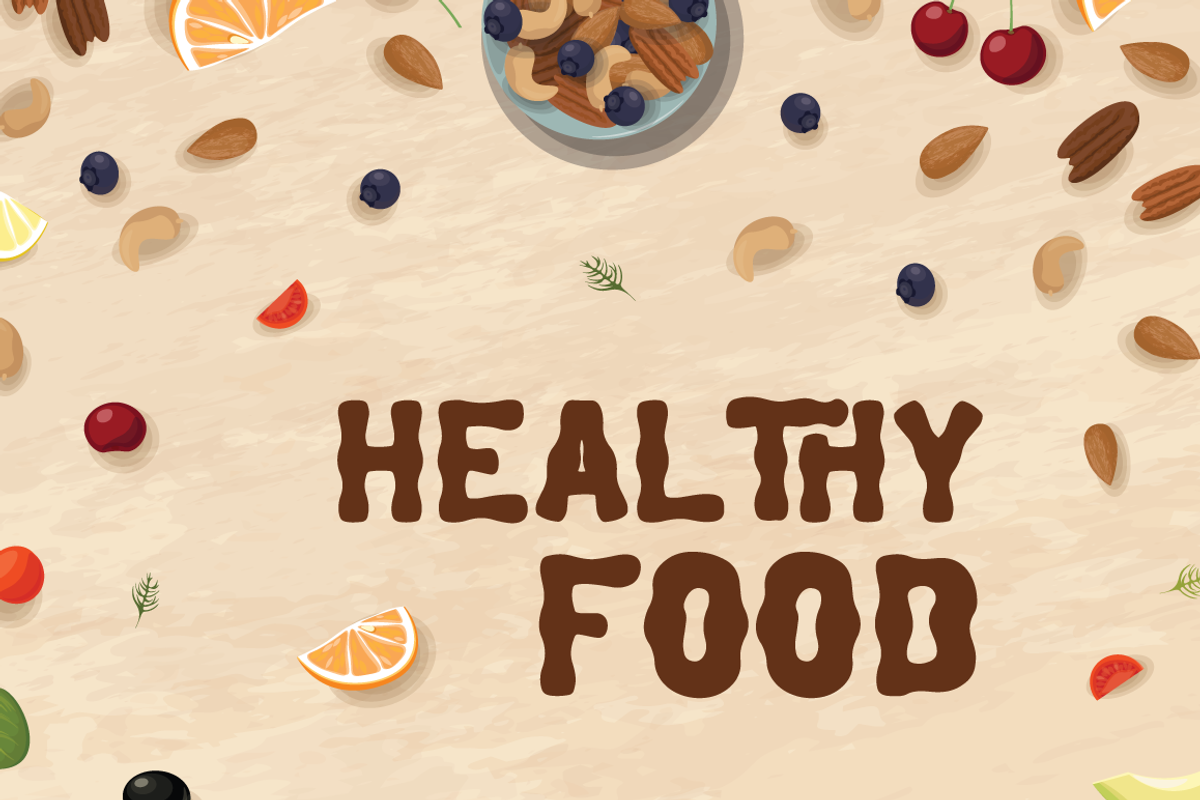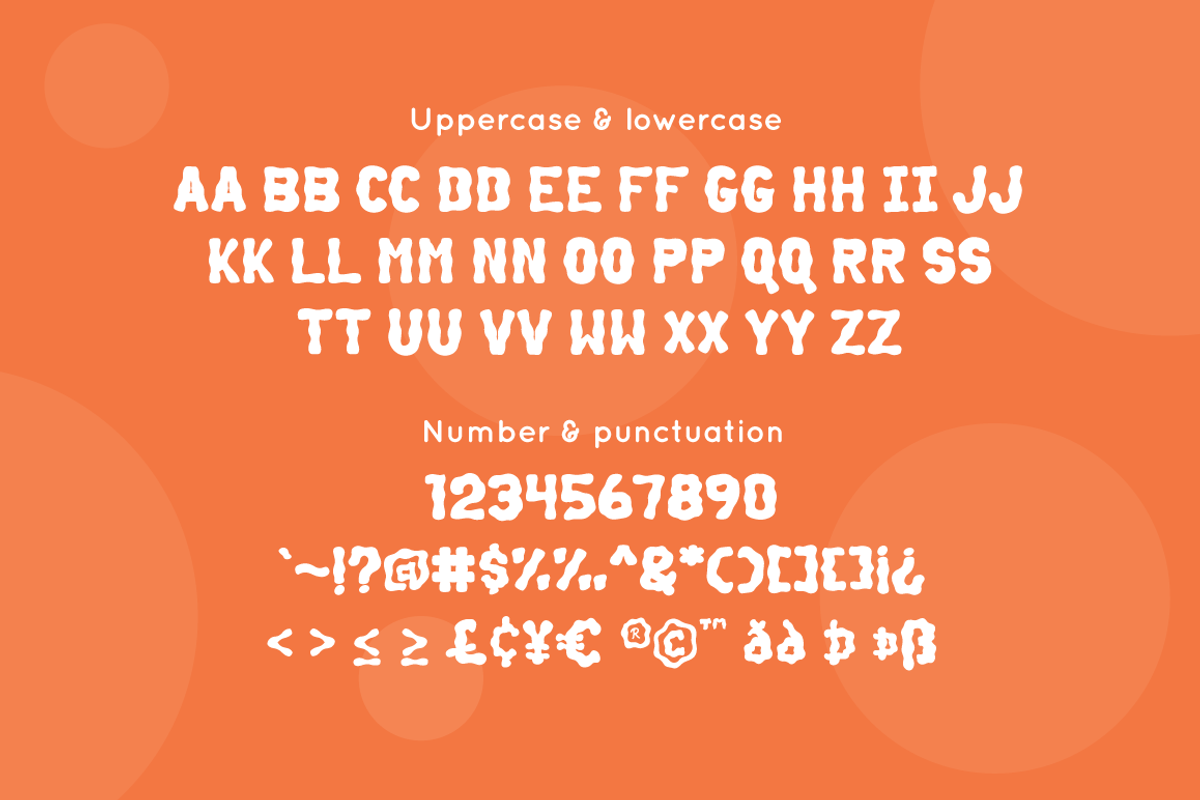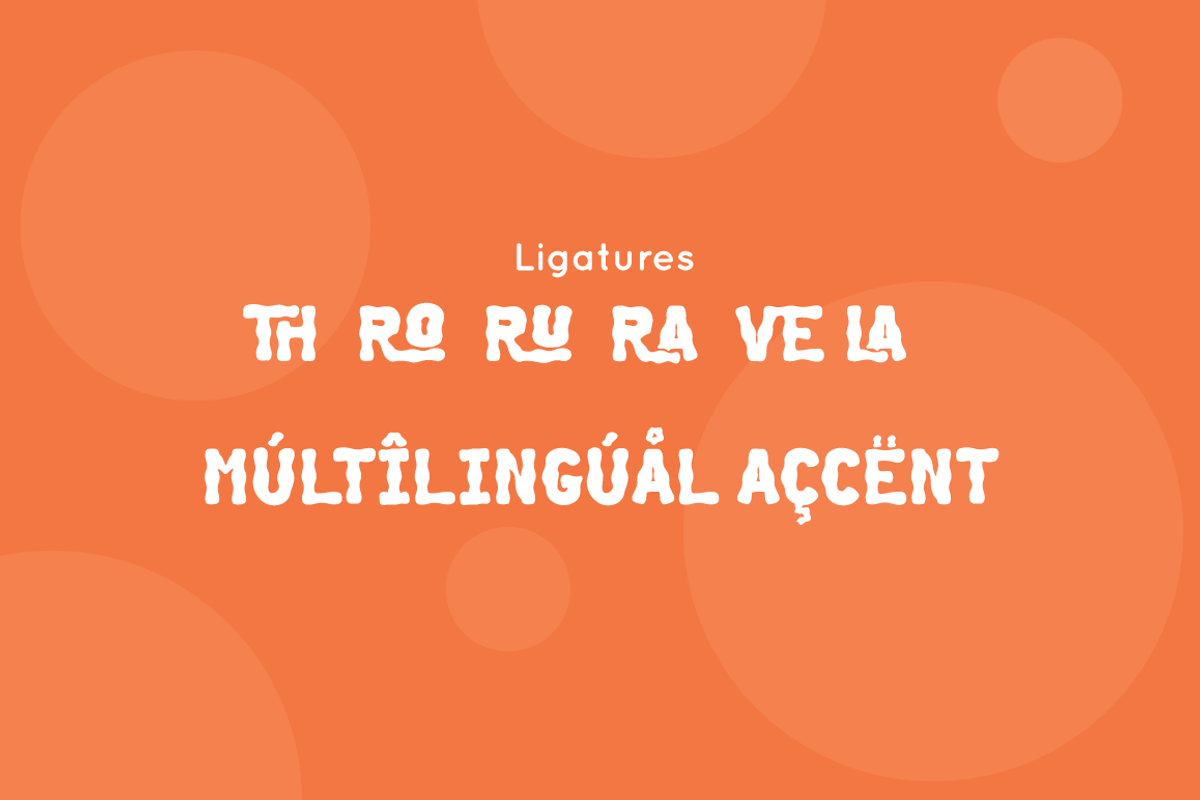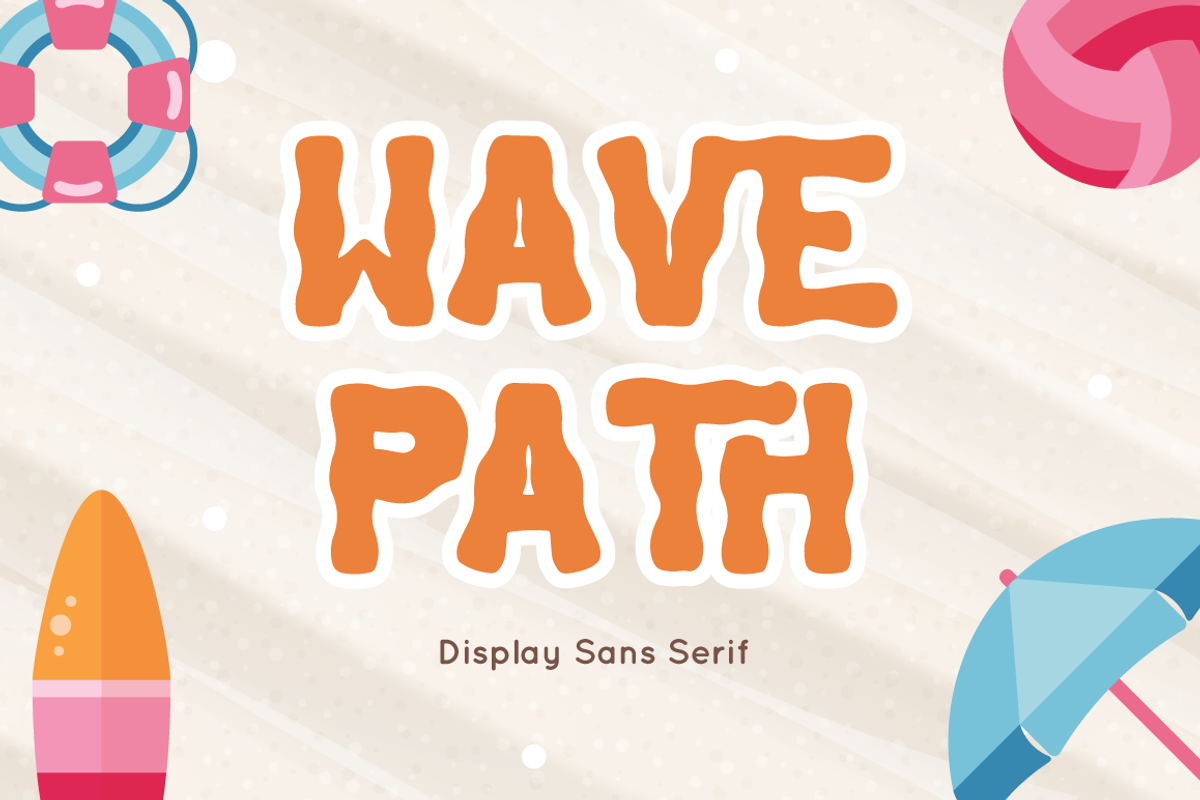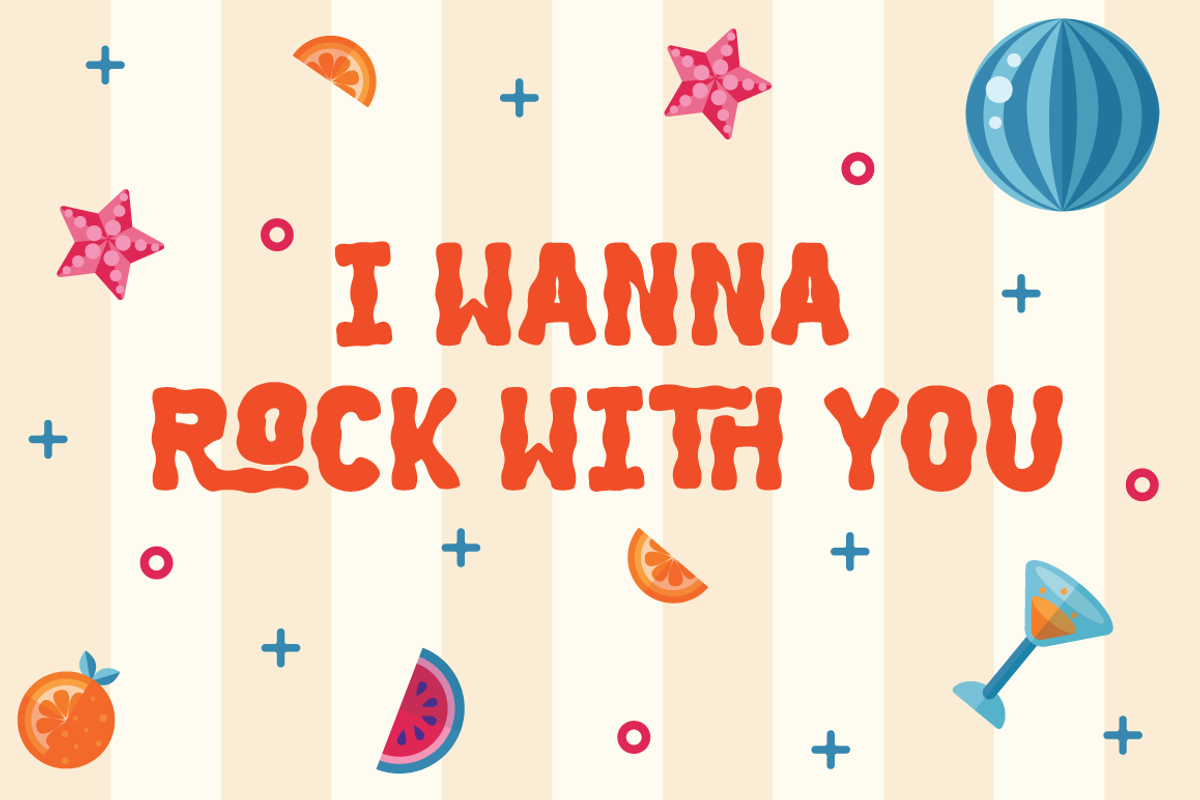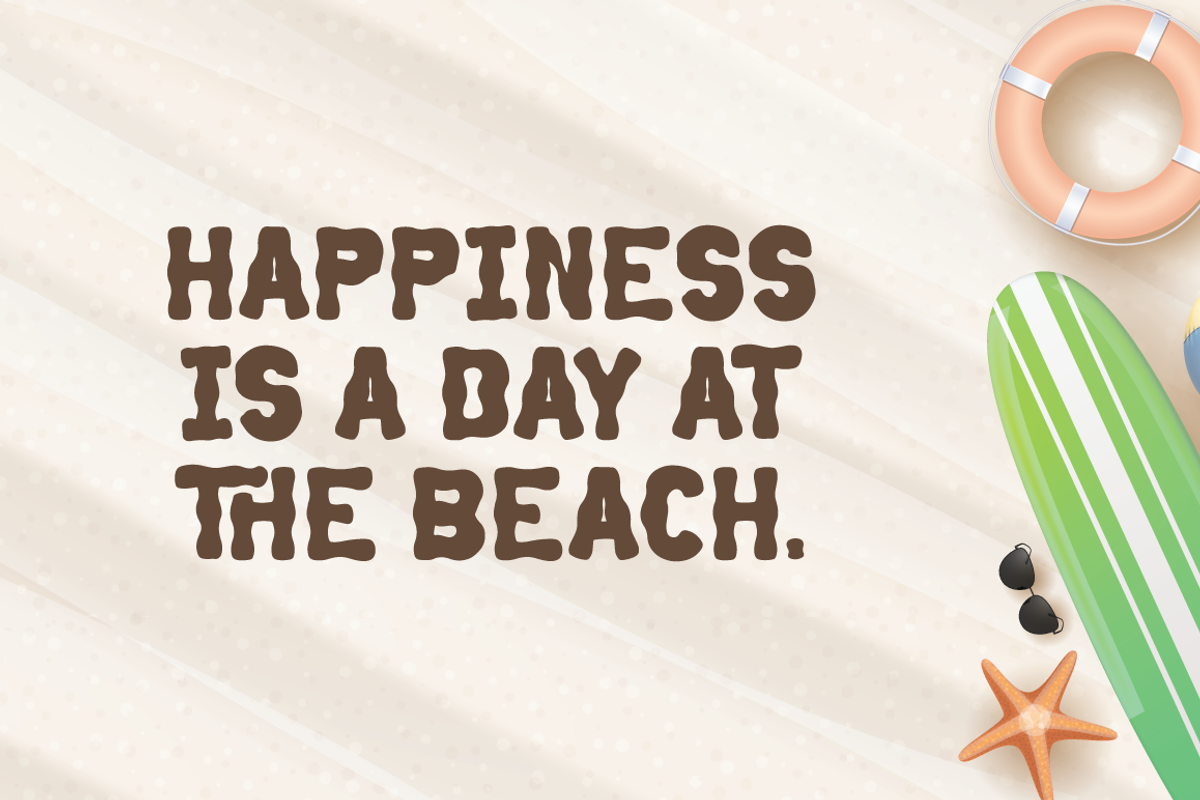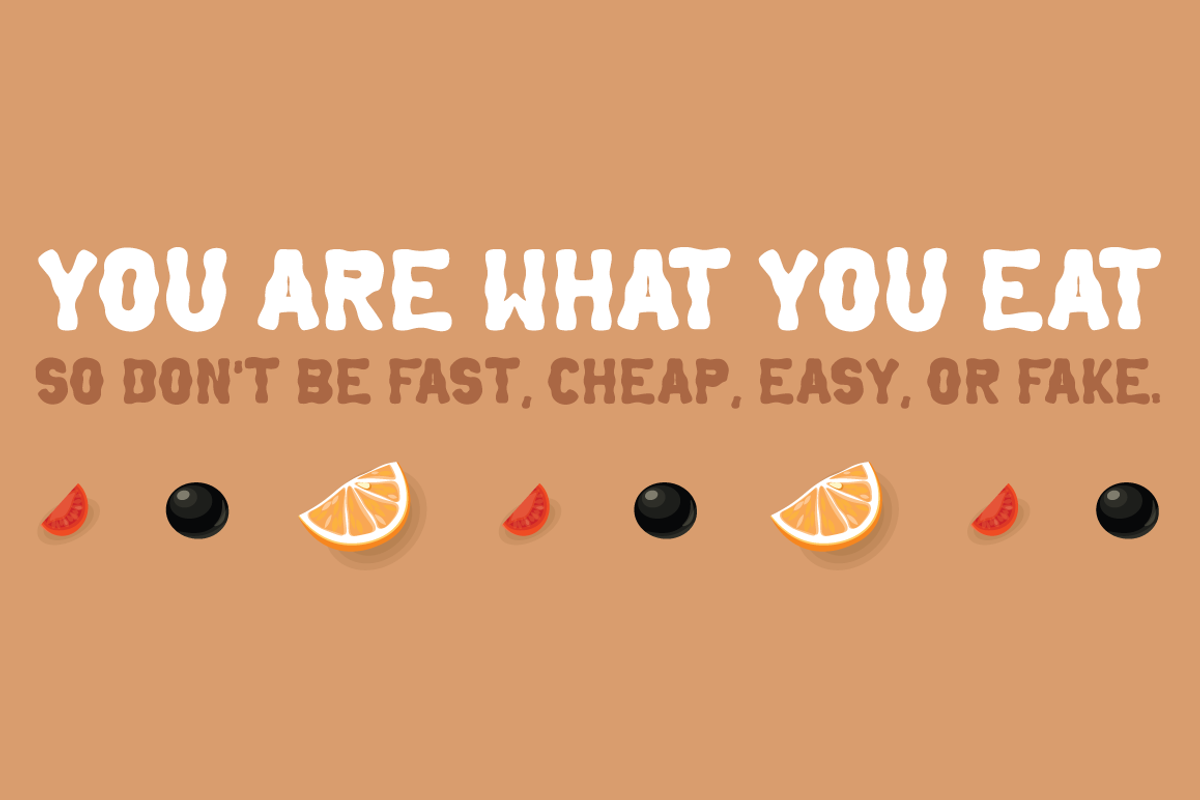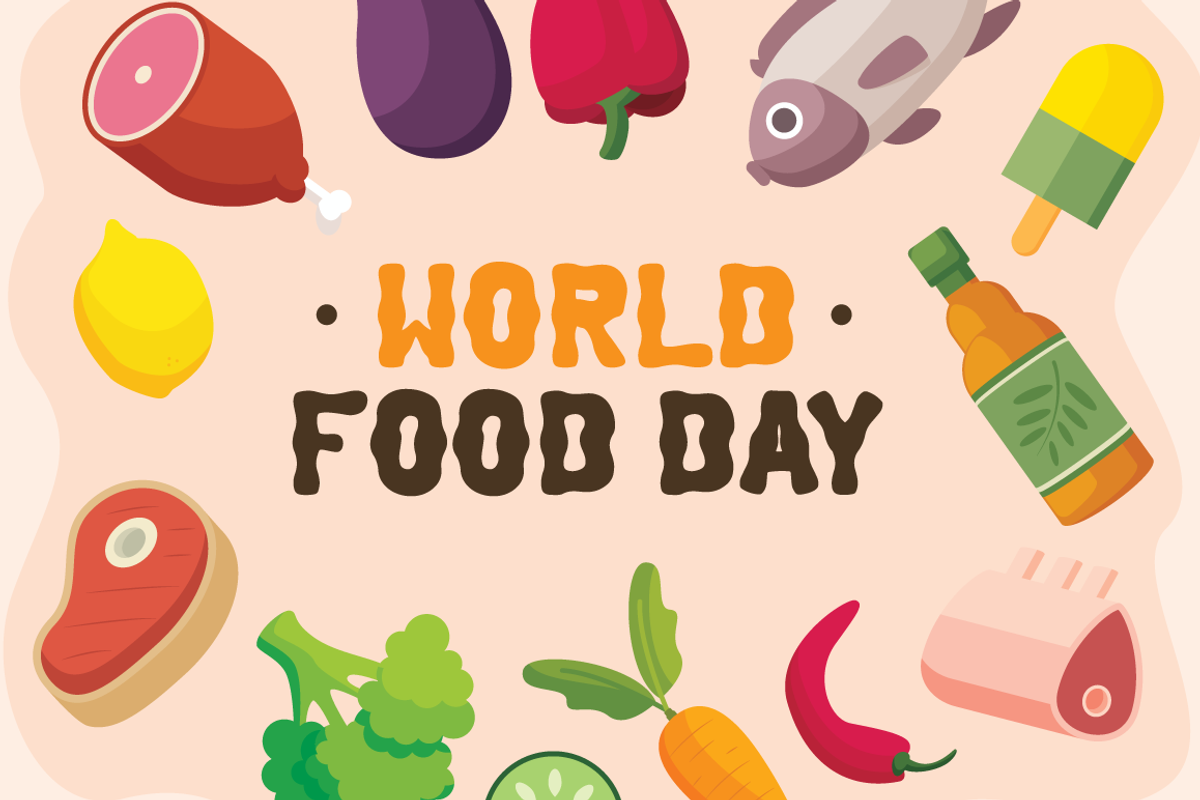
Wave Path - Display Sans Serif
Wave Path inspired by Ocean Wave on summer. perfect Sans serif display font for summer business, summer flyer, summer sign & summer decor. Comes with Ligatures character, Perfect combination effect for typography that you creates.
Wave Path is perfect for branding, logo, invitation, stationery, social media post, product packaging, merchandise, blog design, game titles, cute style design, Book/Cover Title and more.